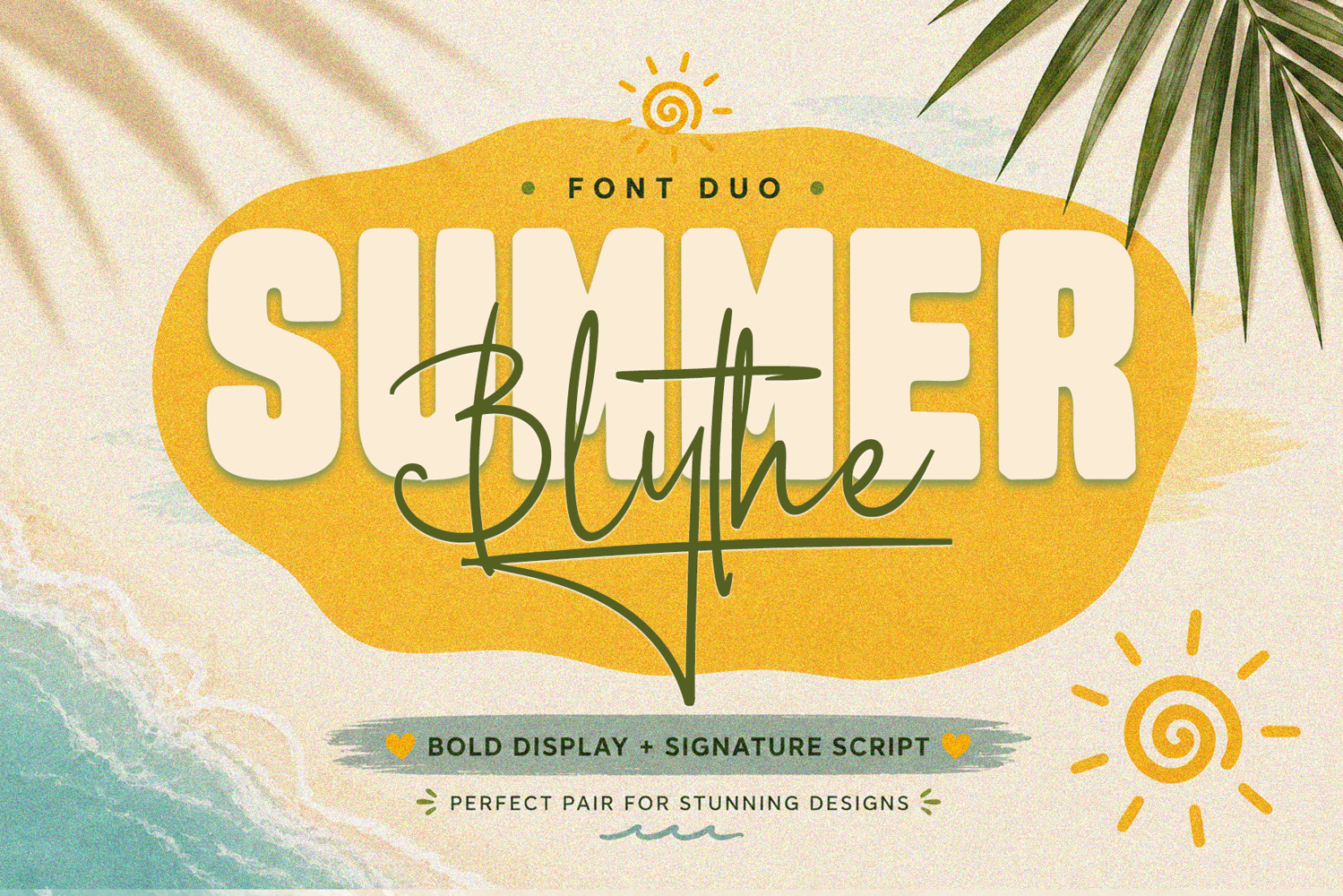
Summer Blythe Font Duo
Summer Blythe is a stylish font duo that combines a bold display font with a flowing signature script, creating a striking balance between strong typography and elegant handwritten details.
The bold display style brings a confident and eye-catching look, while the signature script adds a natural, expressive touch. Use them together for beautiful typography combinations or separately for a wide range of creative projects.